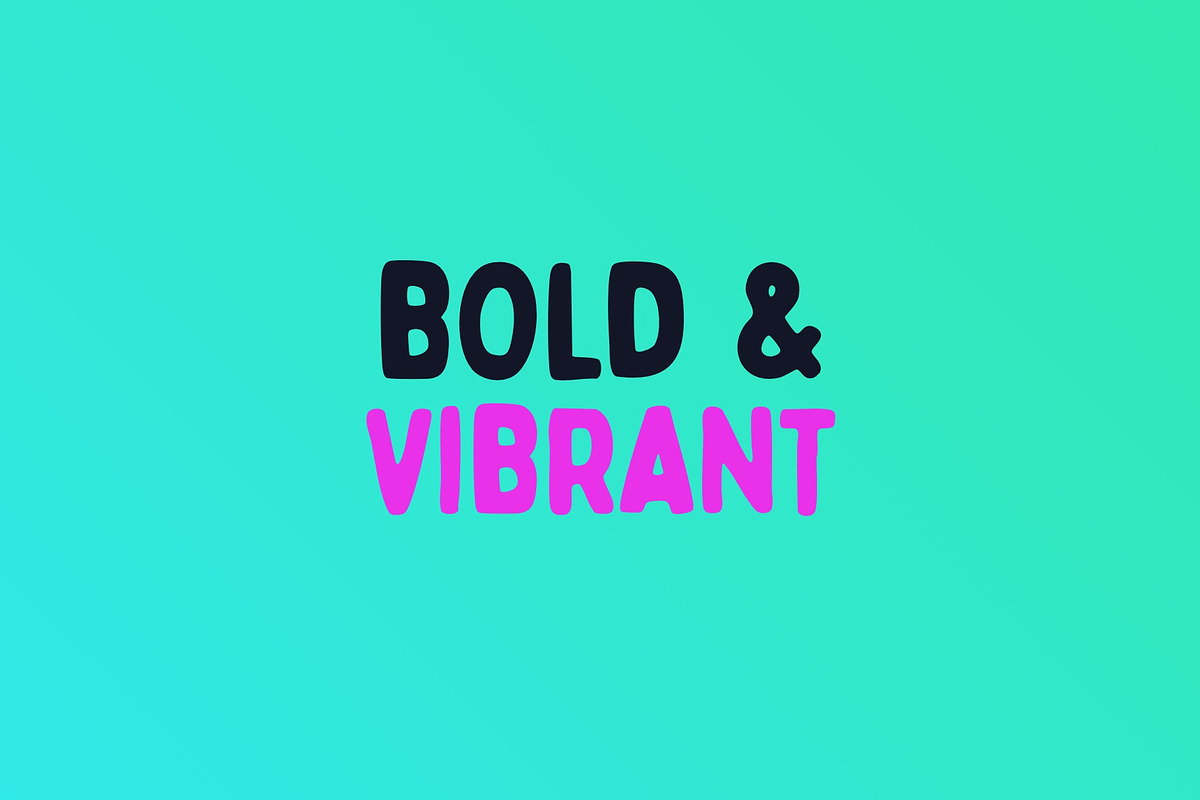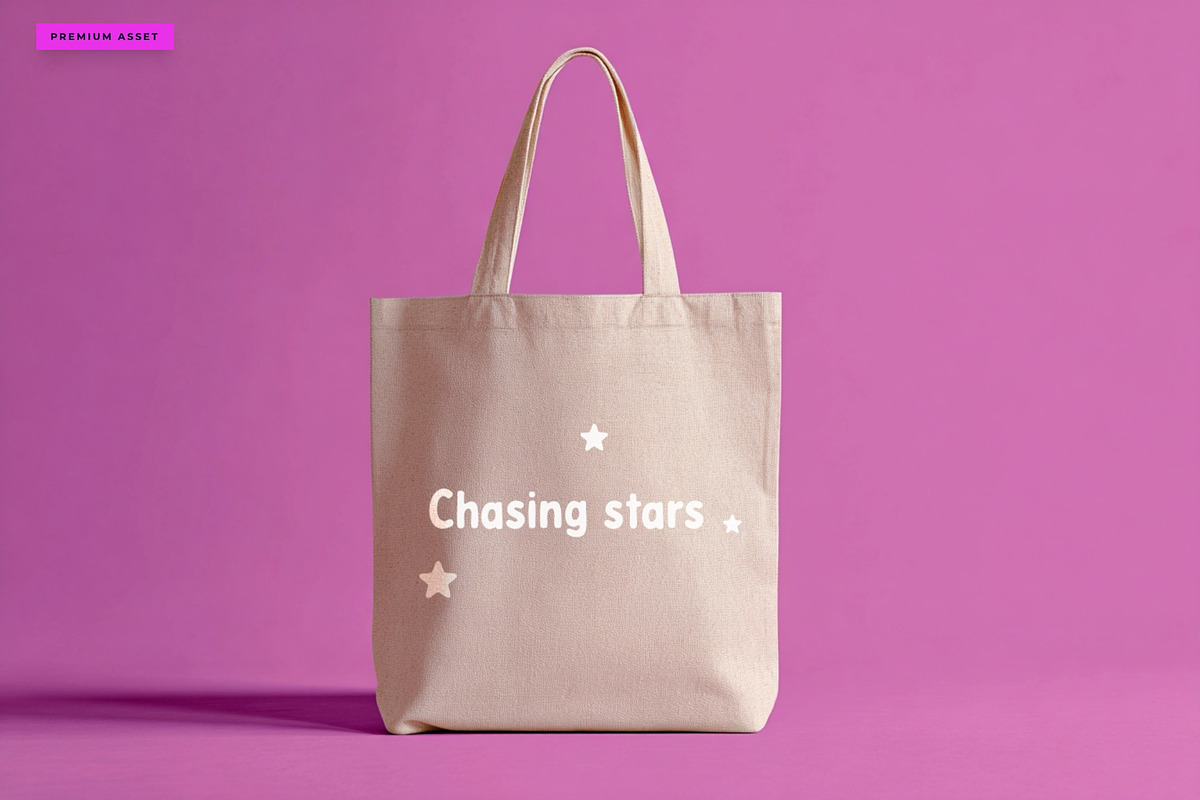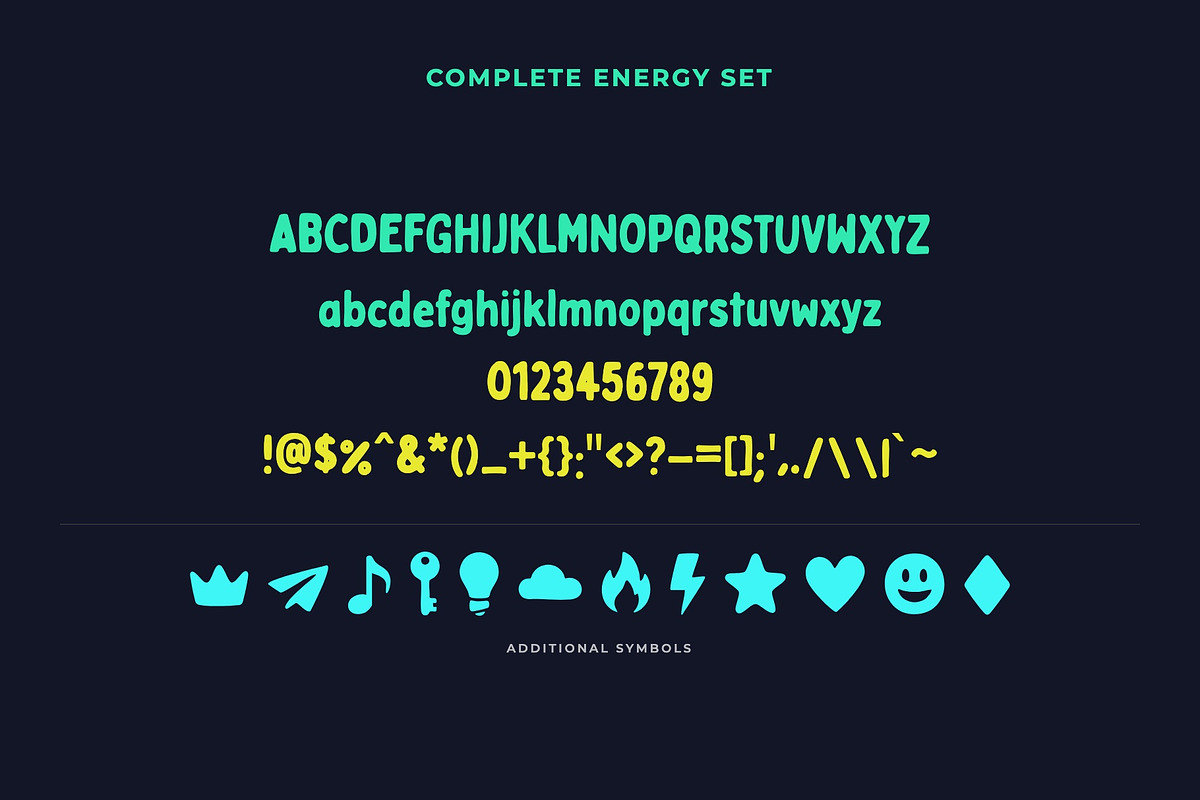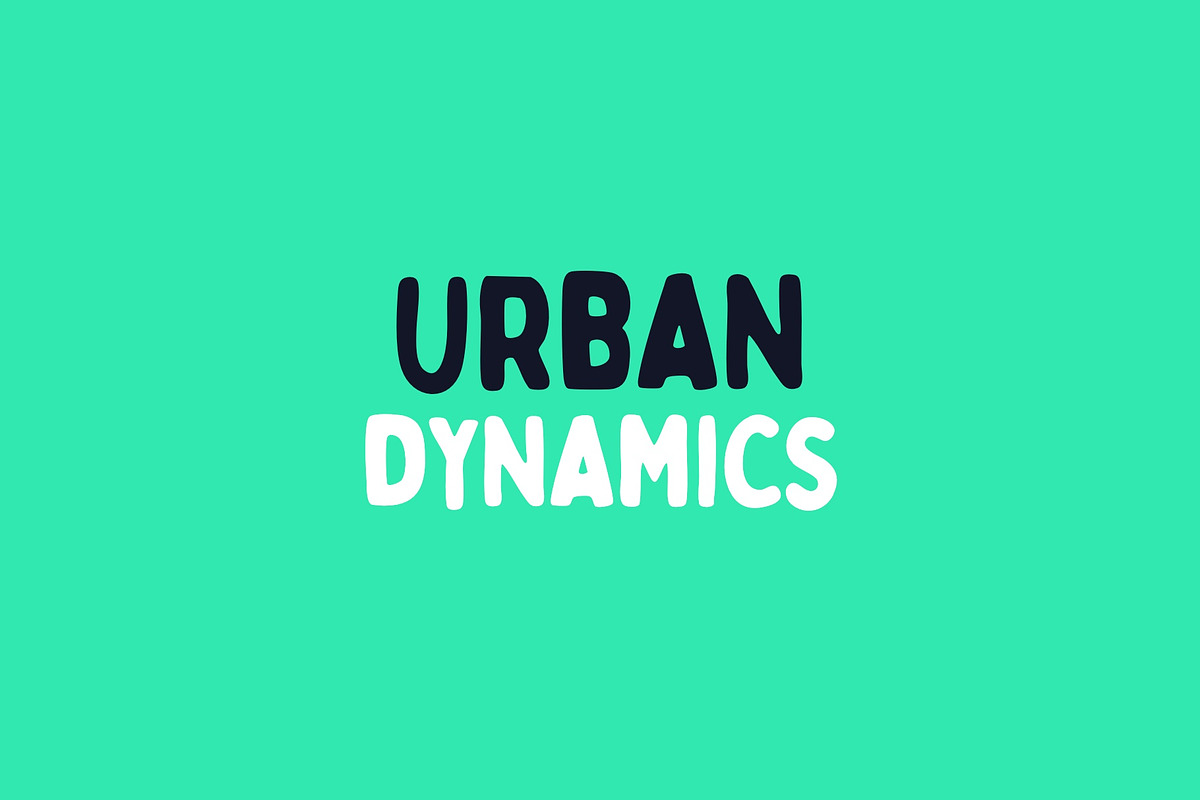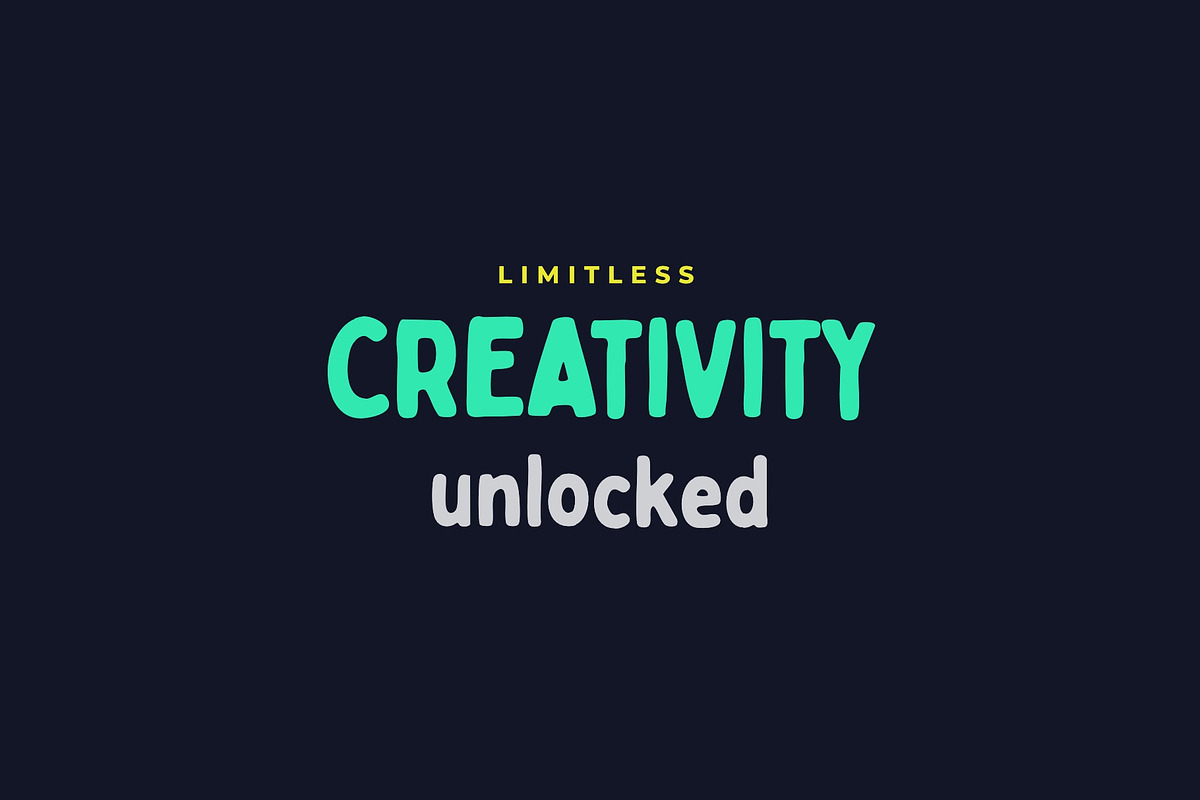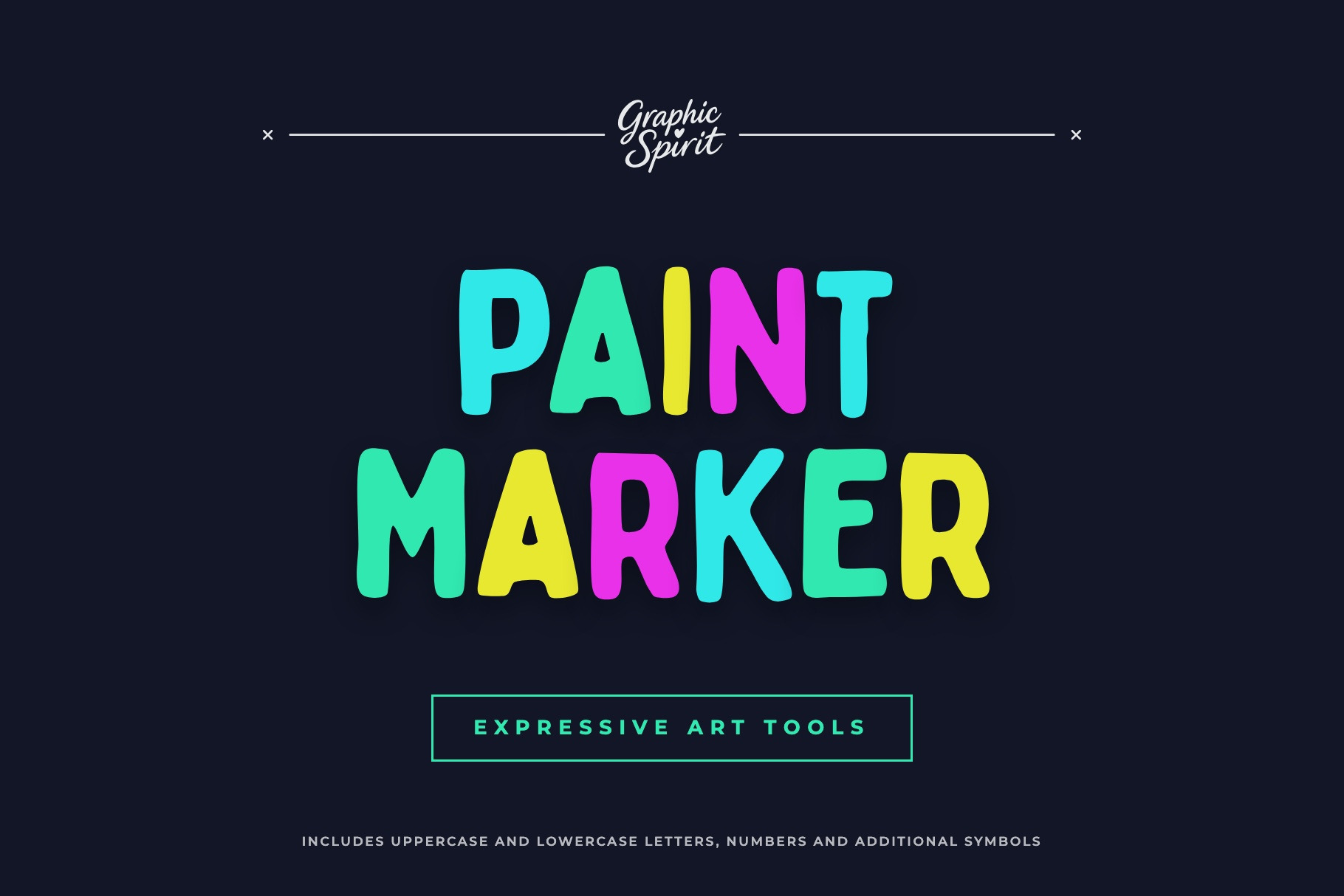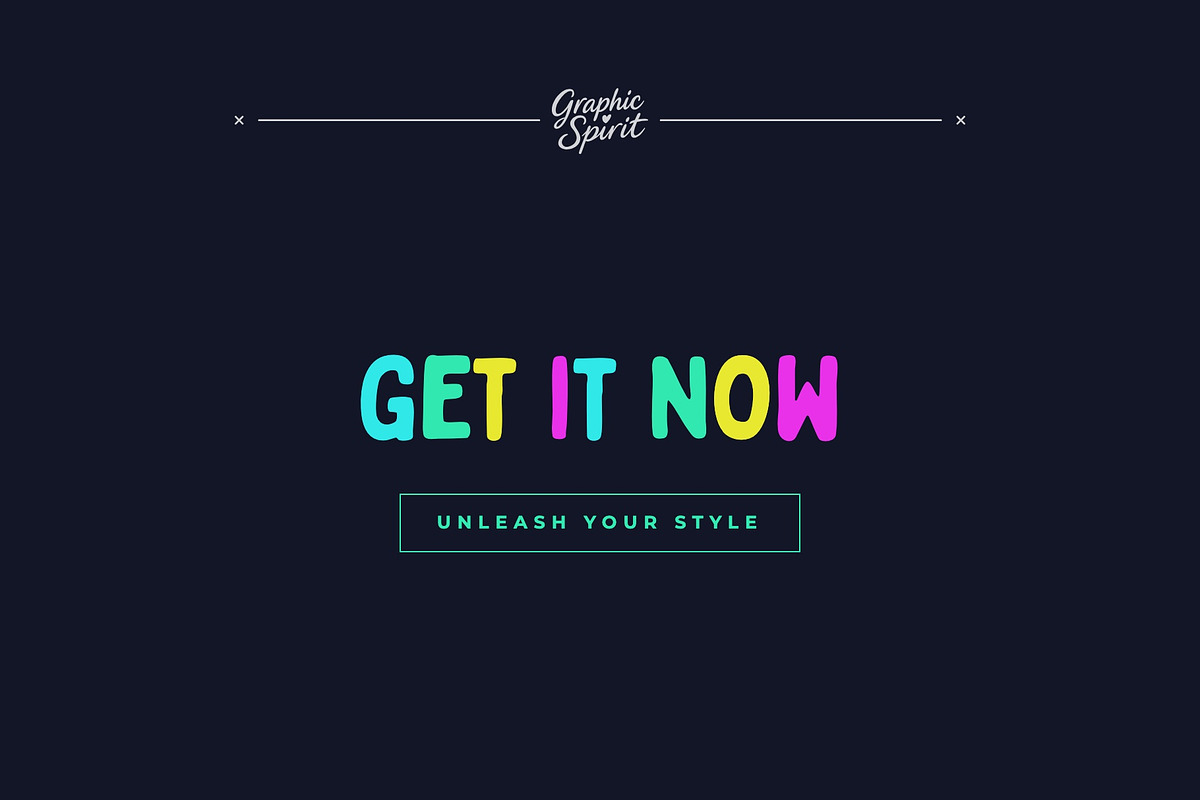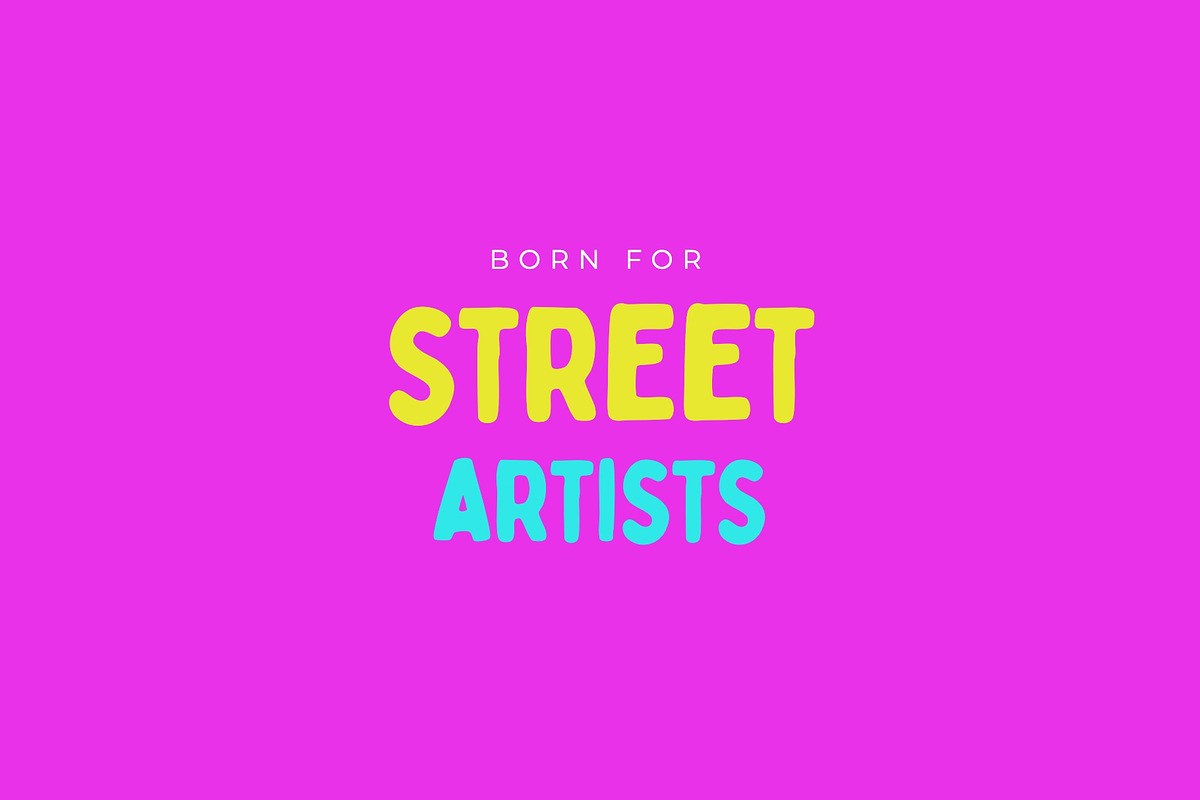
Paint Marker Decorative Font
🎨 Paint Marker is a bold and authentic hand-painted brush font designed to bring a street-art storytelling vibe to your creative projects. This digital download features realistic marker textures and an expressive urban aesthetic, making it perfect for street-style branding, energetic editorial layouts, and high-impact poster design. Its chunky, raw letterforms capture a sense of motion and professional polish that will energize any visual identity with attitude.
🎨 Whether you are crafting a bold logo or an urban headline, Paint Marker provides the brush geometry and hand-painted attitude needed for state-of-the-art designs. The font's unique textured glyphs and street-art aesthetic allow for endless creative possibilities across various digital platforms. Transform your work with this premium typeface that seamlessly blends urban grit with brush-stroke storytelling power for your brand. 🎨